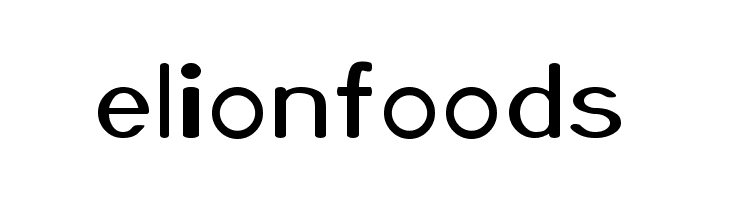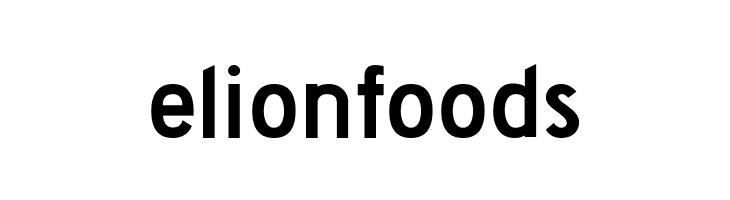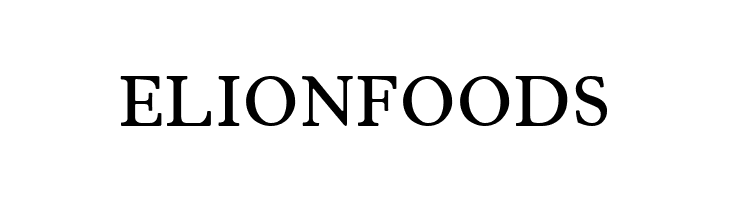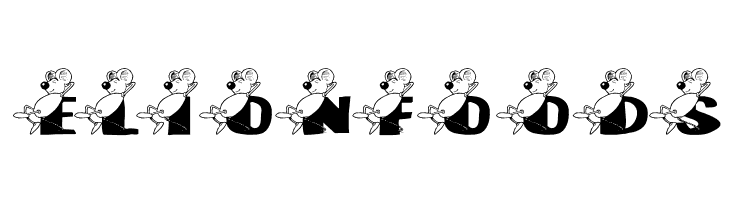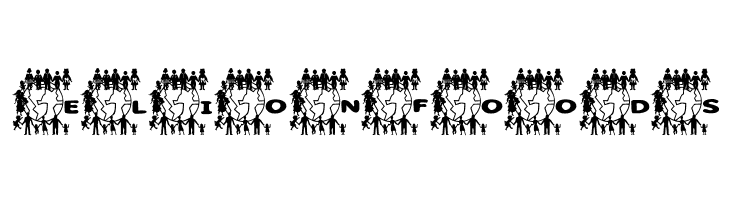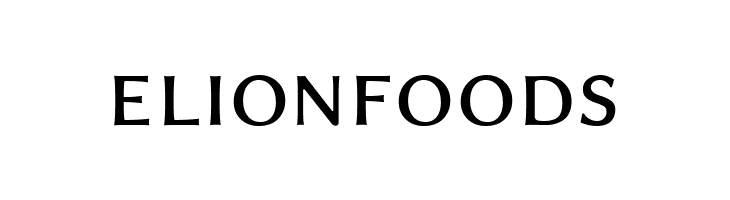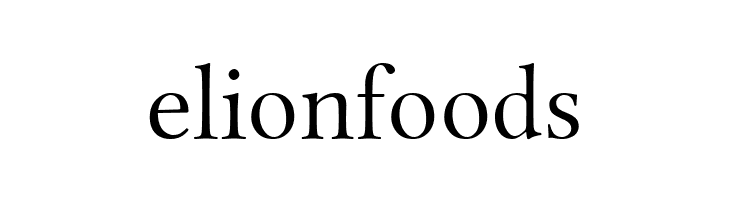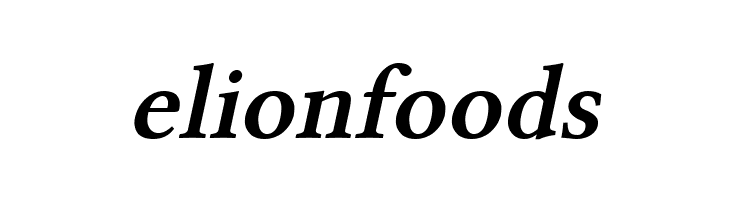
A playful font with bold letters and cartoon mouse illustrations.
A decorative font with characters formed by silhouettes of people, symbolizing unity.
A classic serif font with elegant lines and balanced proportions.
A classic serif typeface with elegant proportions and high readability.
A classic, slanted serif font with elegant proportions and readability.
A modern, thin sans-serif font with clean lines and balanced proportions.
A modern, sans-serif font with a clean, uniform design and slightly condensed proportions.
A clean, modern font with balanced proportions and excellent readability.
A classic serif font with elegant proportions and sharp serifs.
A classic serif font with elegant, sharp serifs and refined proportions.